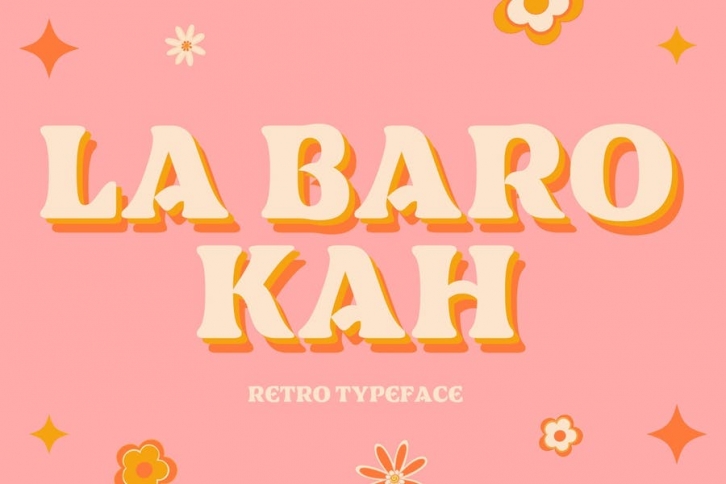
La Barokah , Contemporary of Bold Serif Typeface,
La Barokah offers beautiful typographic harmony for a diversity of design projects, including logos & branding, social media posts, advertisements & product designs.